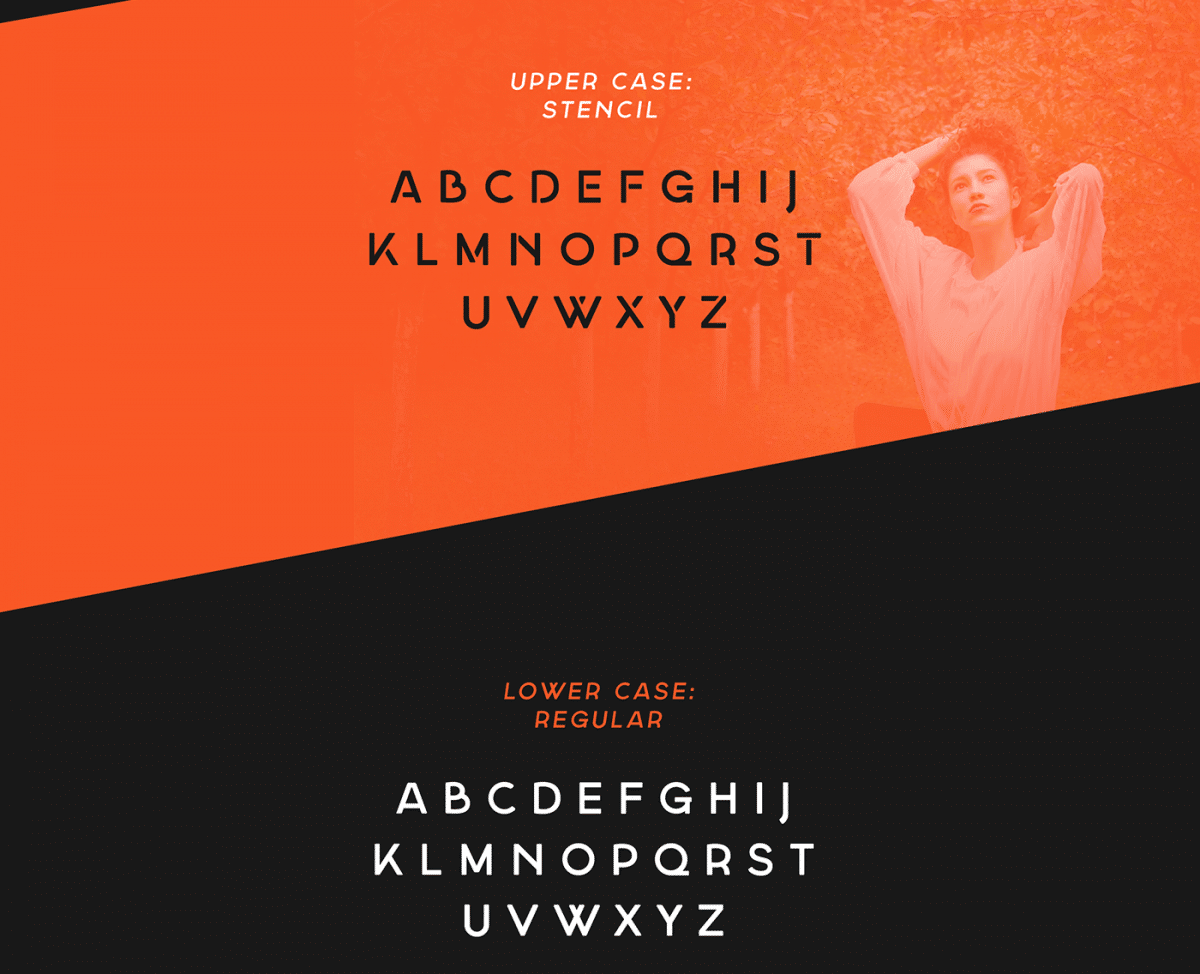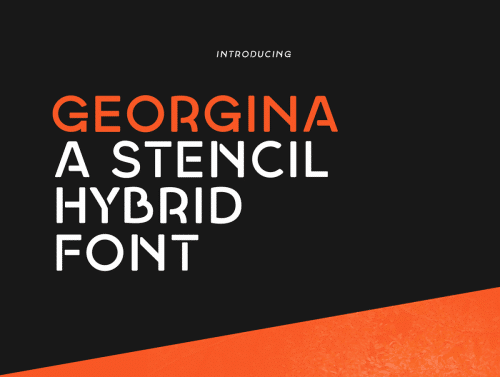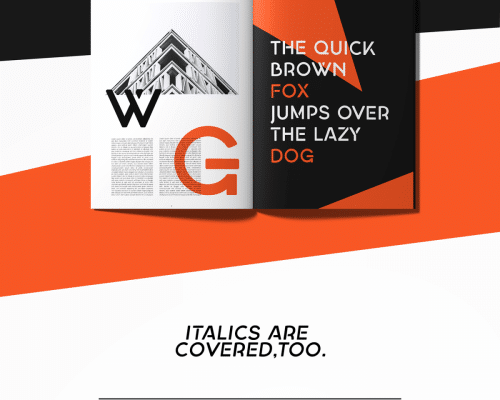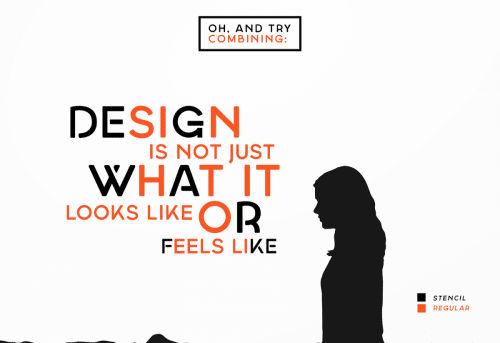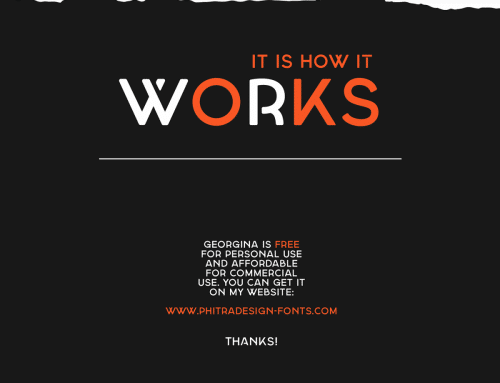
Georgina Stencil Hybrid Font
Introducing a free Stencil Hybrid Font. This is a very modern Sans Serif Font. This typeface socks you can get very creative, it fits many of your design project, perfectly suited for graphic design and any display use. It could easily work for web, signage, corporate as well as for editorial design.